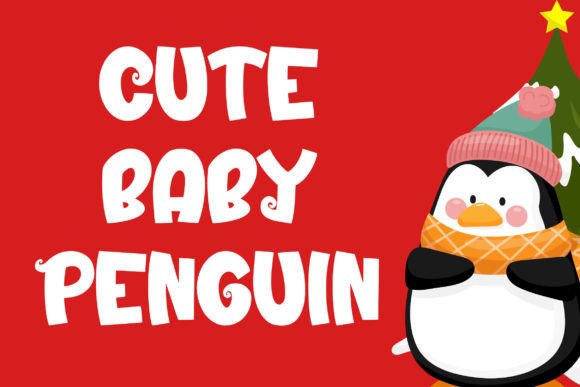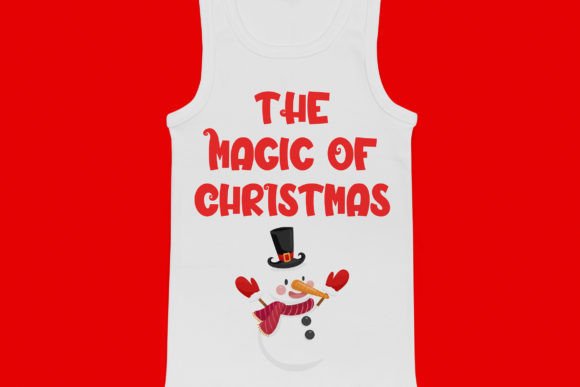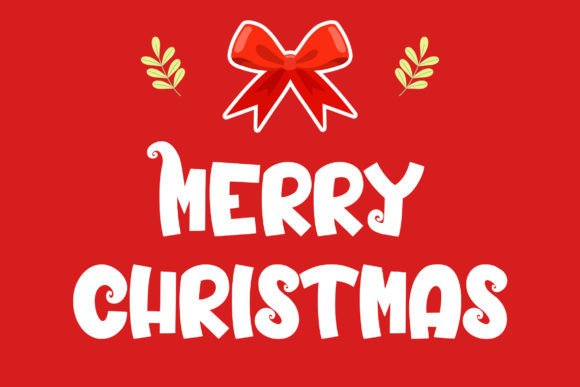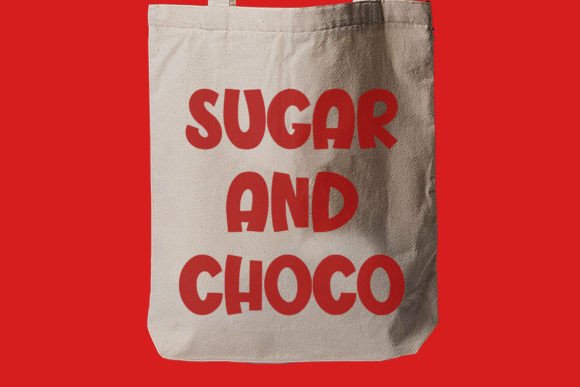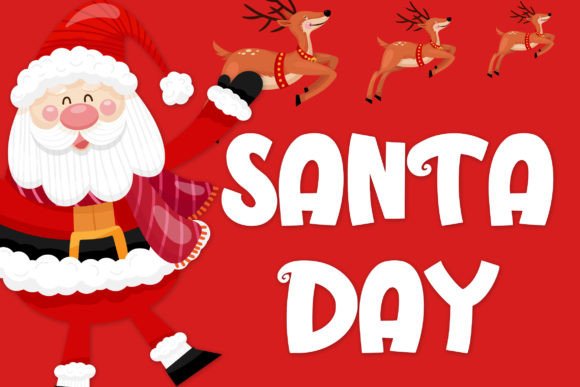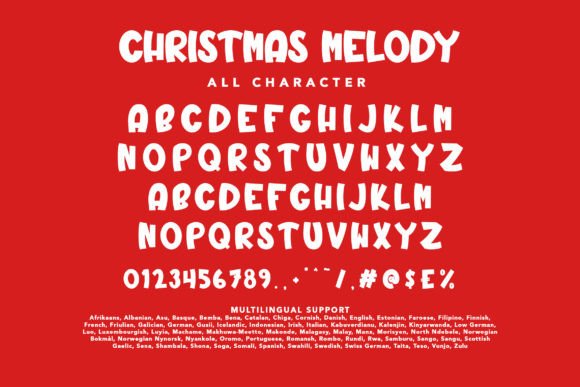
Introducing Christmas Melody Font: The Perfect Festive Typographic Solution
Are you looking for a font that captures the essence of Christmas and adds a touch of festivity to your designs? Look no further than Christmas Melody Font! This adorable display font is perfect for creating stunning branding projects, logos, wedding designs, media posts, advertisements, product packaging, product designs, labels, photography, watermarks, invitations, stationery, and any project that needs a dash of holiday cheer.
What Makes Christmas Melody Font So Special?
Christmas Melody Font boasts distinctive handwritten characters that exude a sense of warmth and coziness, making it an ideal choice for designers and crafters seeking to add a personal touch to their work. The font’s unique and playful style is sure to make your designs stand out from the crowd and leave a lasting impression on your audience.
Key Features of Christmas Melody Font
- Cute and Playful Design: Christmas Melody Font features a delightful and whimsical design that is sure to bring a smile to your face and add a touch of festivity to your projects.
- PUA Encoded: This font is PUA encoded, which means you can easily access all of the glyphs and swashes, giving you complete creative control over your designs.
- Versatile: Christmas Melody Font is perfect for a wide range of projects, from branding and logos to wedding designs, media posts, and more.
- Easy to Use: With its user-friendly design and PUA encoding, you can quickly and easily incorporate Christmas Melody Font into your workflow.
Whether you’re a professional designer or a crafter looking to add a personal touch to your projects, Christmas Melody Font is the perfect choice. Its unique and playful style makes it ideal for:
- Branding Projects: Create stunning logos, business cards, and letterheads that showcase your brand’s personality.
- Wedding Designs: Add a touch of romance and whimsy to your wedding invitations, stationery, and decorations.
- Media Posts: Create eye-catching social media posts, graphics, and ads that are sure to engage your audience.
- Product Packaging: Add a personal touch to your product packaging and make your products stand out on store shelves.
- Photography: Use Christmas Melody Font to create beautiful watermarks and overlays for your photos.
Tips for Using Christmas Melody Font
To get the most out of Christmas Melody Font, here are a few tips to keep in mind:
- Experiment with Different Sizes and Colors: Play around with different font sizes and colors to find the perfect combination for your project.
- Mix and Match with Other Fonts: Combine Christmas Melody Font with other fonts to create a unique and visually appealing design.
- Use the Glyphs and Swashes: Take advantage of the PUA encoding and use the glyphs and swashes to add a personal touch to your designs.
Christmas Melody Font is a versatile and festive font that is perfect for designers and crafters looking to add a touch of holiday cheer to their projects. With its unique and playful design, PUA encoding, and ease of use, it’s an ideal choice for a wide range of applications. So why wait? Download Christmas Melody Font today and start creating stunning designs that capture the essence of Christmas!